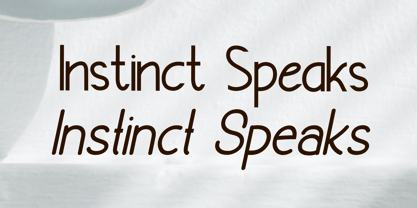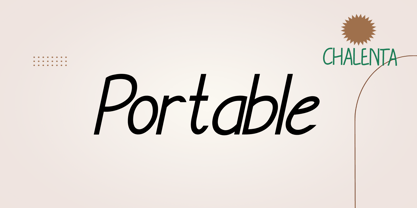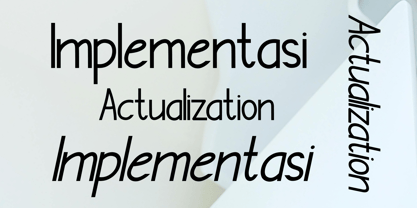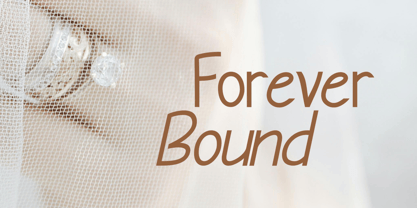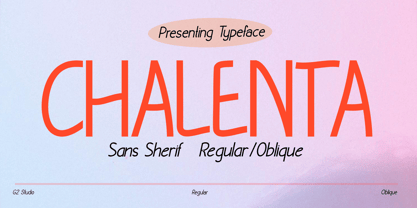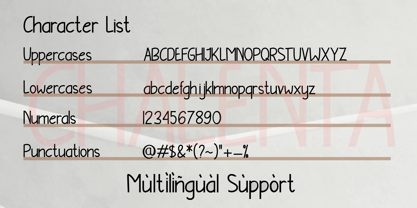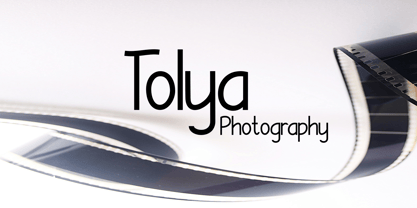
Chalenta
by G2 Studio
The Chalenta Font Family was designed by Eka Setiono and published by G2 Studio. Chalenta contains 2 styles and family package options.
Chalenta Sans Serif is a modern and elegant font with a clean, well-balanced design. Its smooth lines and readable structure make it perfect for various design needs.
With a minimalist yet sophisticated touch, this font exudes both professionalism and warmth. Versatile and adaptable, Chalenta Sans Serif is ideal for branding, editorial, digital, and print applications.